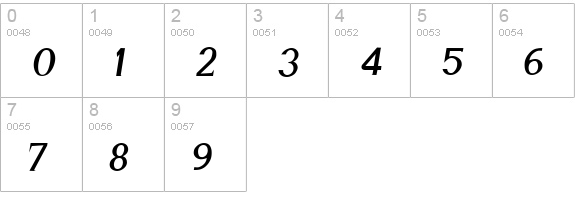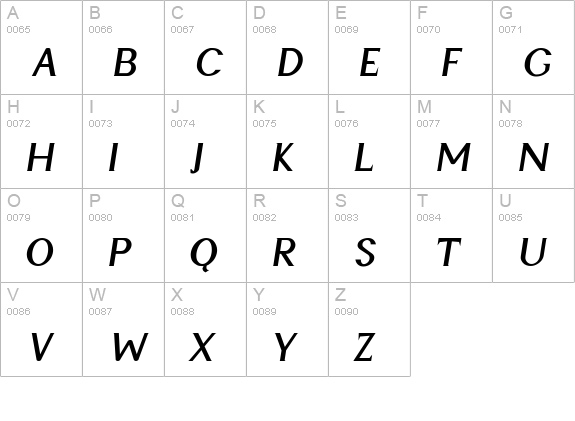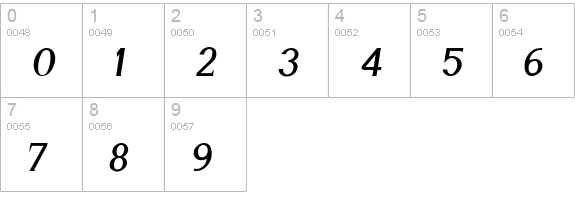
Cyn Italic Bold Font Details
Cyn Italic Bold is a strong, high-contrast, italic variant in the Cyn typeface family \xE2\x80\x94 well suited to headlines, attention-grabbing titles, and strong calls-to-action.
Cyn Italic Bold font is a stunning typeface that exudes elegance and sophistication. Its bold and italicized design adds a touch of uniqueness, making it perfect for eye-catching headlines, titles, and promotional materials. The font's sleek and dynamic curves create a sense of movement and energy, captivating the reader's attention. With its strong presence, Cyn Italic Bold font commands authority and demands attention, making it an ideal choice for branding, advertising, and logo design. Its versatility allows it to be used across various industries, from fashion to technology, and everything in between. What sets Cyn Italic Bold font apart is not only its striking visual appeal but also its availability for free. You can easily download this exquisite font for free at FontsMarket.com, ensuring that it is accessible to designers, creatives, and enthusiasts alike. This generosity allows you to elevate your designs without any additional cost, making it an invaluable resource for any project. Whether you are designing a website, crafting a brochure, or creating social media graphics, Cyn Italic Bold font will effortlessly enhance your overall aesthetic. Its bold and italicized style adds a modern and contemporary touch, while its readability ensures that your message is conveyed clearly and effectively. Don't miss out on the opportunity to elevate your designs with Cyn Italic Bold font. Download it for free at FontsMarket.com and experience the seamless blend of elegance and versatility that this font offers. Transform your projects into works of art with this remarkable typeface, and let your creativity shine.